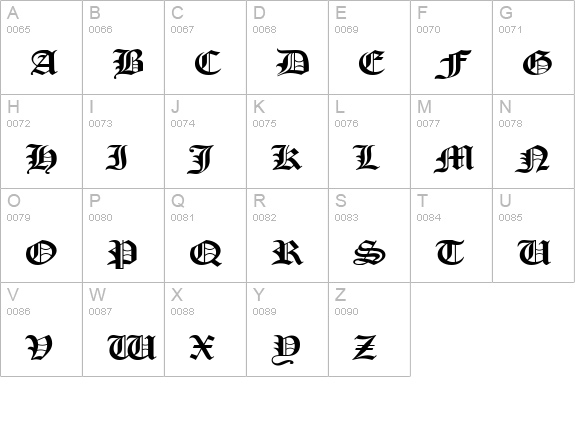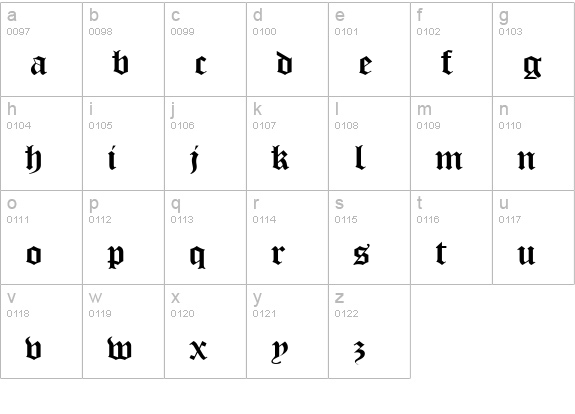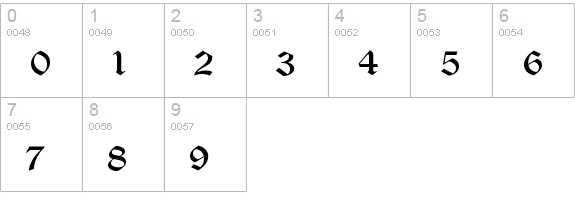
Midevil Wide Normal Font Details
Midevil Wide Normal is the standard, neutral, extended-width variant in the Midevil typeface family \xE2\x80\x94 well suited to general body text, paragraphs, and standard typographic work.
Midevil Wide Normal font is a versatile typeface that combines classic elegance with a modern twist. Its bold and distinctive letterforms are perfect for creating eye-catching headlines and impactful designs. This font exudes a sense of historic charm, making it ideal for projects that require a touch of medieval flair. What sets Midevil Wide Normal font apart is its unique blend of traditional elements and contemporary styling. The wide letter spacing and sturdy serifs add a sense of stability and presence, while the subtle curves and flourishes give it a touch of sophistication. Whether you are designing a poster, logo, or website, this font will make your text stand out and leave a lasting impression. One of the best things about Midevil Wide Normal font is that it is completely free to download. You can easily access this font at FontsMarket.com and start using it in your projects right away. Don't miss out on the opportunity to add this stunning typeface to your design arsenal and elevate your creations to a whole new level.